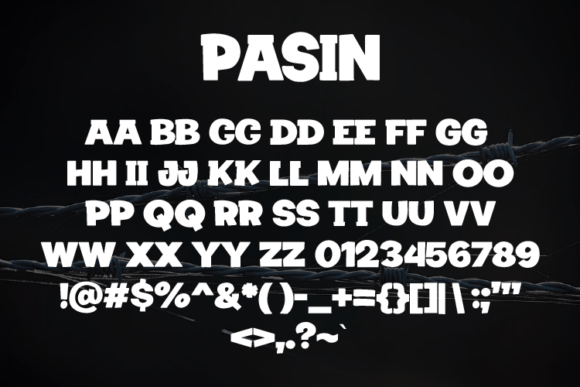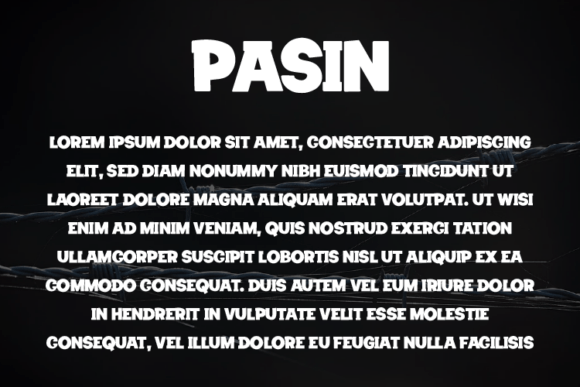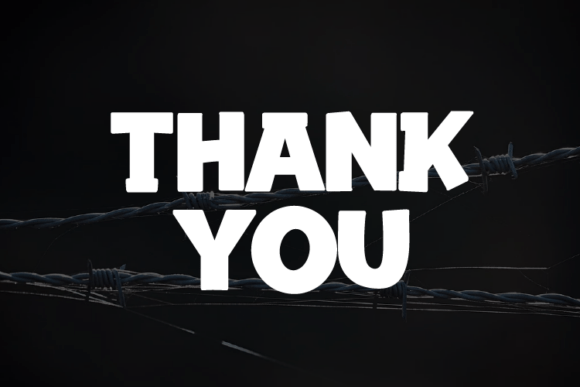
Introduction to Pasin Font
Have you ever found yourself stuck in a creative rut, unable to find the perfect font to elevate your project? I’m sure many designers can relate to that frustrating feeling. But what if you stumbled upon a font that not only solved your problem but also elevated your entire design? Welcome to the world of Pasin Font, a modern and elegant typeface designed for flexibility and excellent readability across a wide range of media.
Pasin Font Key Features
- Unique characteristics: Modern, elegant, and minimalist design aesthetic, suitable for various creative projects, including branding, logos, and digital art.
Honest Review: Pasin Font
I recently had the chance to work with the Pasin Font, and I must say it’s been a game-changer for my creative projects. This font is a high-quality addition to any design resource, offering a sleek and modern aesthetic that’s perfect for a variety of applications.
One of the things I appreciate most about the Pasin Font is its versatility. It works well for both digital and print projects, and its transparent background makes it easy to use as a overlay or texture. ✨
Here are some of the key features I love about the Pasin Font:
- Sleek and modern aesthetic
However, I do have a few minor complaints about the Pasin Font. ⚠️
The font can be a bit difficult to read in small sizes, and it may not be suitable for all types of text-based projects. Additionally, the font’s modern aesthetic may not be to everyone’s taste.
Overall, I’m really impressed with the Pasin Font and would highly recommend it to anyone looking for a high-quality design resource. With its sleek aesthetic and transparent background, it’s a great addition to any creative project. ✨
Pasin Font
The Pasin Font is a high-quality, free design resource perfect for any creative project. With its unique style and transparent background, it’s an ideal choice for designers looking to add a touch of sophistication to their work.
Tips for Getting the Most Out of Pasin Font
For the best results, use the Pasin Font on a high-contrast background to make the text stand out. You can also experiment with different font sizes and colors to create a unique look.
The Pasin Font is ideal for a variety of creative projects, including logos, business cards, and infographics. Its unique style and transparent background make it perfect for designers looking to add a touch of sophistication to their work.
Alternatives to Pasin Font
Montserrat Font is a popular sans-serif font ideal for creative projects requiring high-quality text. It features a transparent background, making it perfect for design resources with minimalistic designs. This font is free to download and can be used for personal or commercial projects.
Montserrat Font is similar to Pasin Font in its clean and modern design. However, it has a more geometric and structured feel, making it suitable for projects requiring a strong, bold text.
Open Sans Font is a modern sans-serif font designed for digital use. It’s an excellent choice for design resources requiring a high-quality, easy-to-read text. This font is free to download and can be used for personal or commercial projects, including logos, headings, and body text.
Can I modify the Pasin Font to create a custom design?